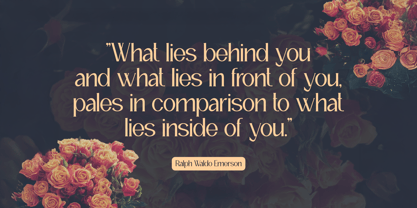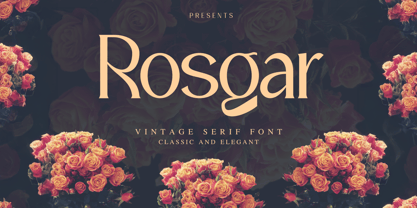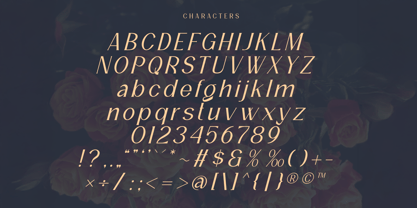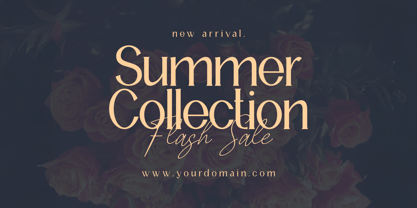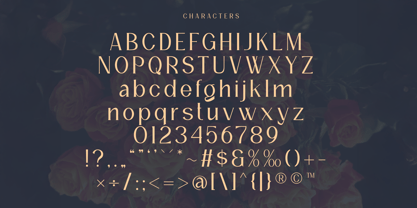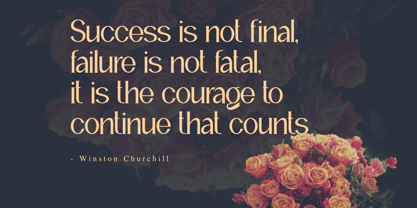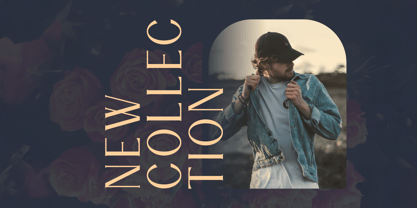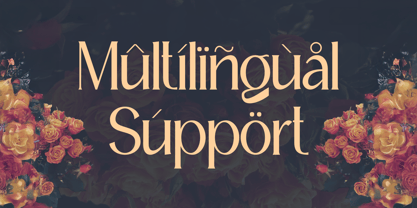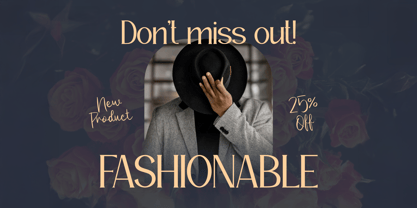
Rosgar
The Rosgar Font Family was designed by Faiz Alqurni and published by Illustraly. Rosgar contains 2 styles and family package options.
Rosgar is a vintage display serif that captures the essence of classic elegance with a timeless charm. Inspired by traditional typography, Rosgar brings refined letterforms and graceful details to elevate your branding, logo designs, editorial headlines, and social media graphics with a sophisticated, vintage flair.
The Regular style features beautifully balanced, heritage-inspired shapes, while the Italic style adds a subtle dynamic flow that enriches your compositions with elegance and movement. Whether you’re designing a luxury brand identity, a retro-themed poster, or stylish social content, Rosgar delivers a classic and polished typographic look.
From premium packaging to editorial spreads, Rosgar gives your words an unforgettable, vintage-inspired presence.
Features:
• Vintage display serif with elegant, classic character
• Two styles: Regular • Italic
• Uppercase & lowercase letters
• Numerals & punctuation
Let your words shine with timeless elegance — with Rosgar.